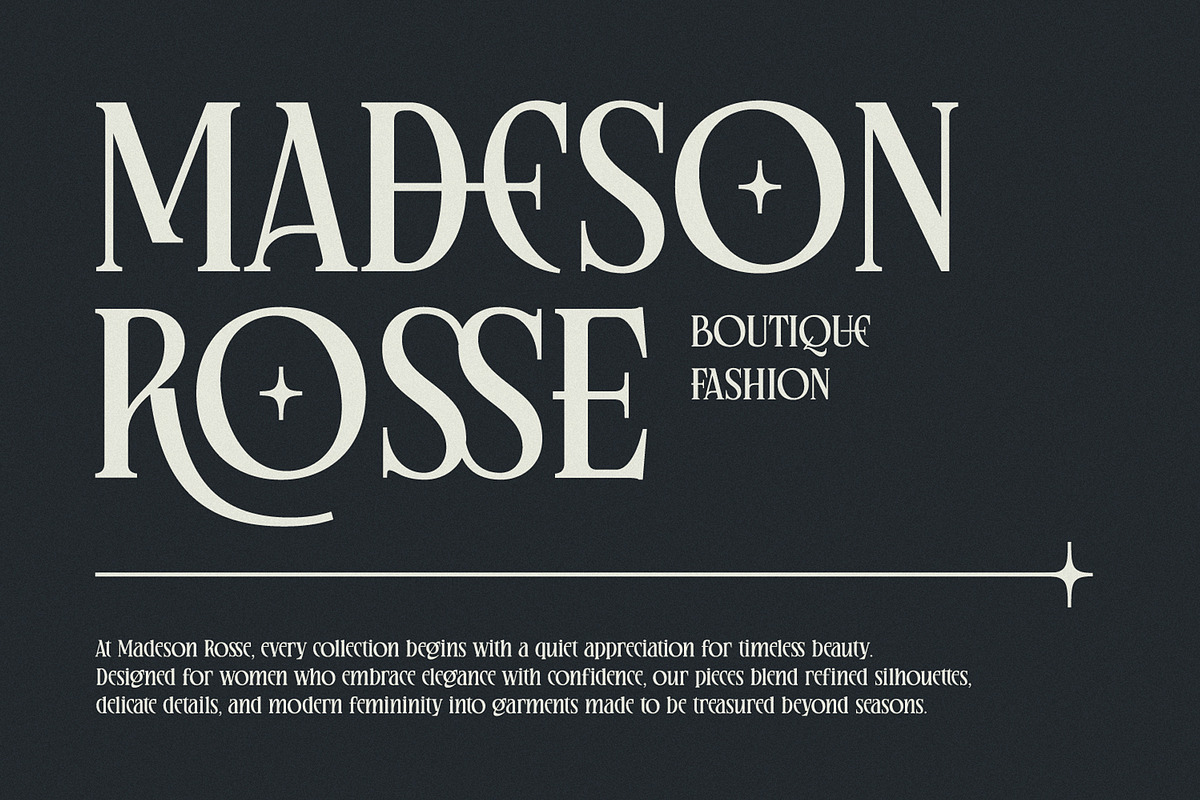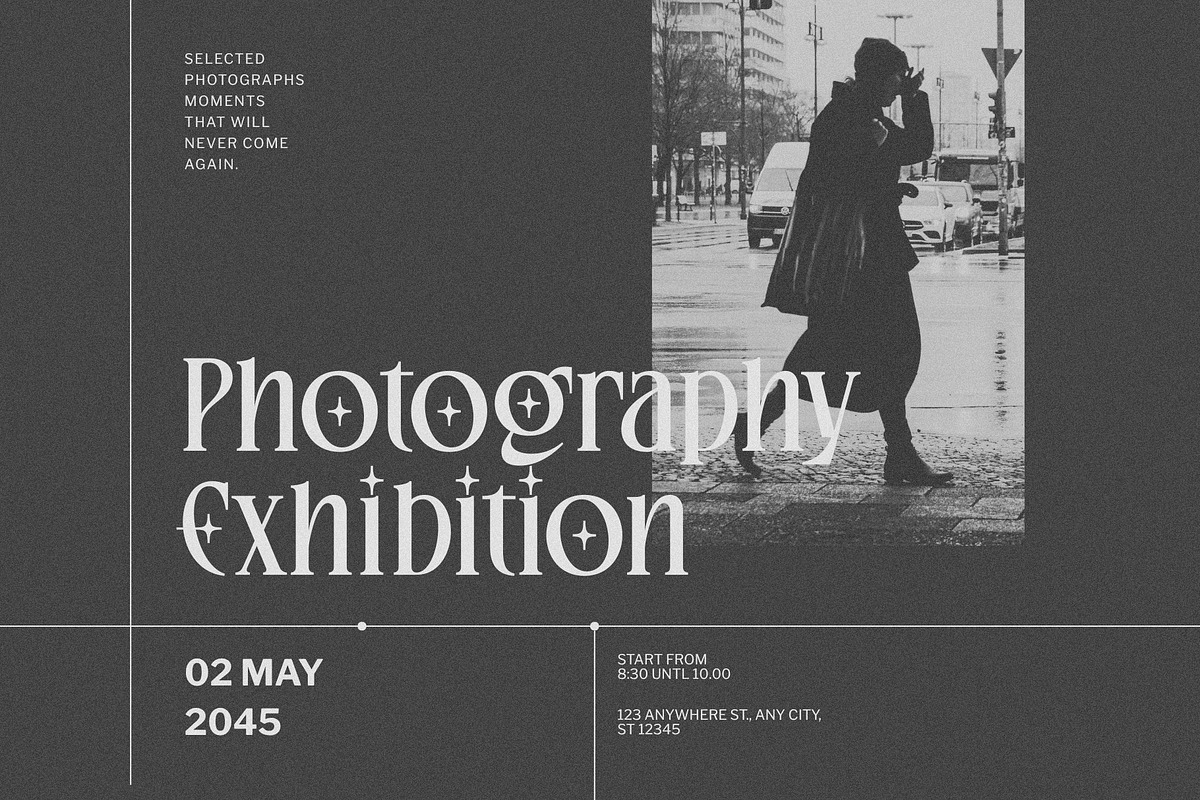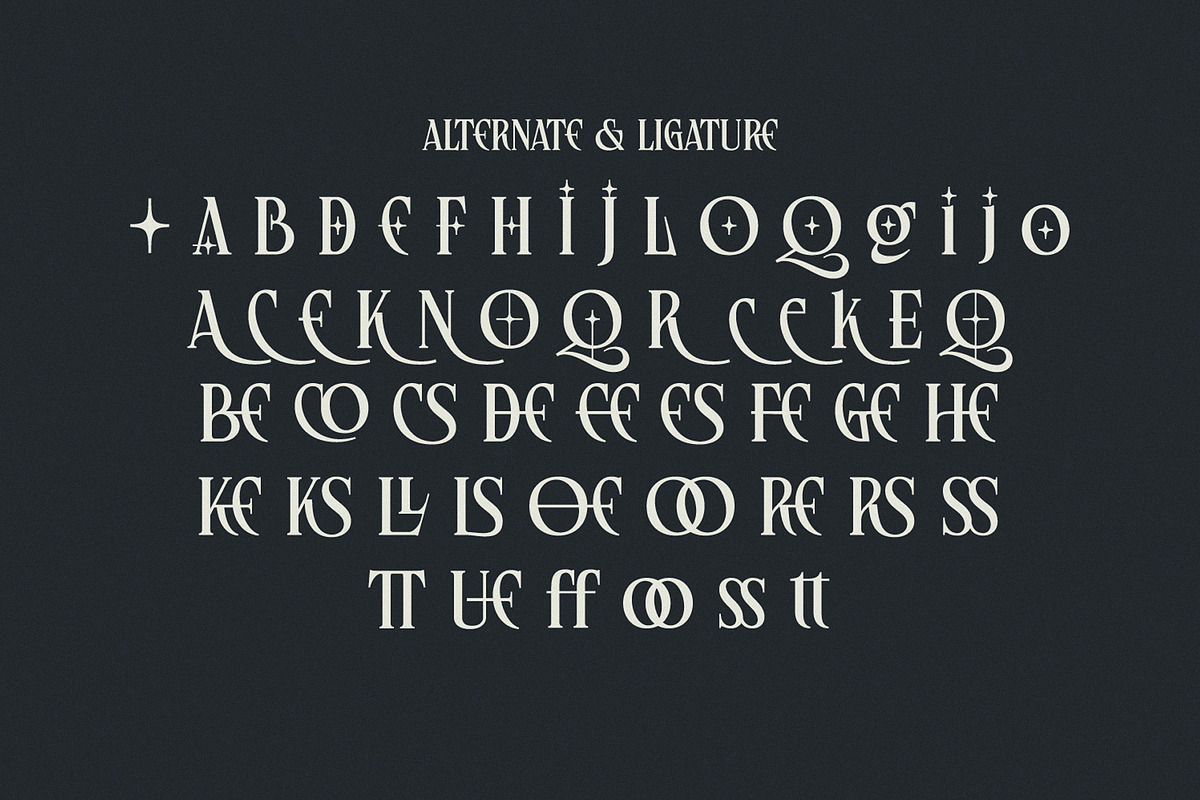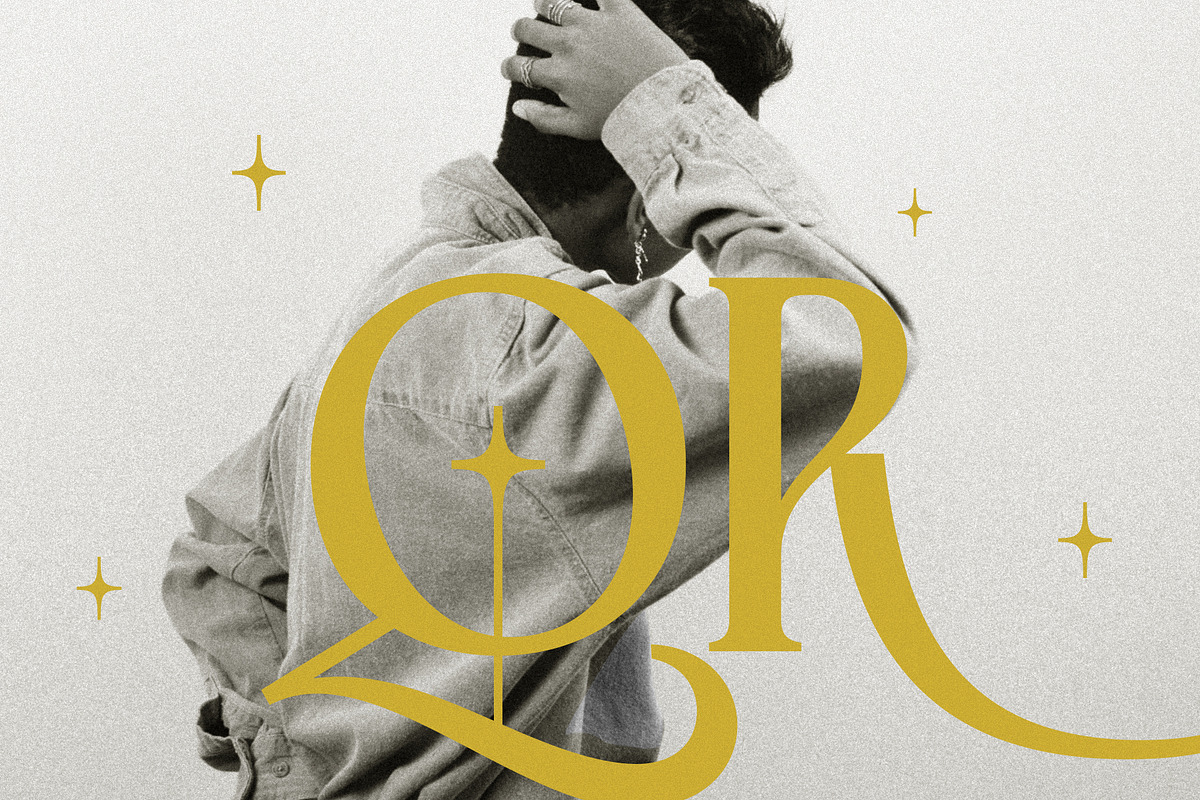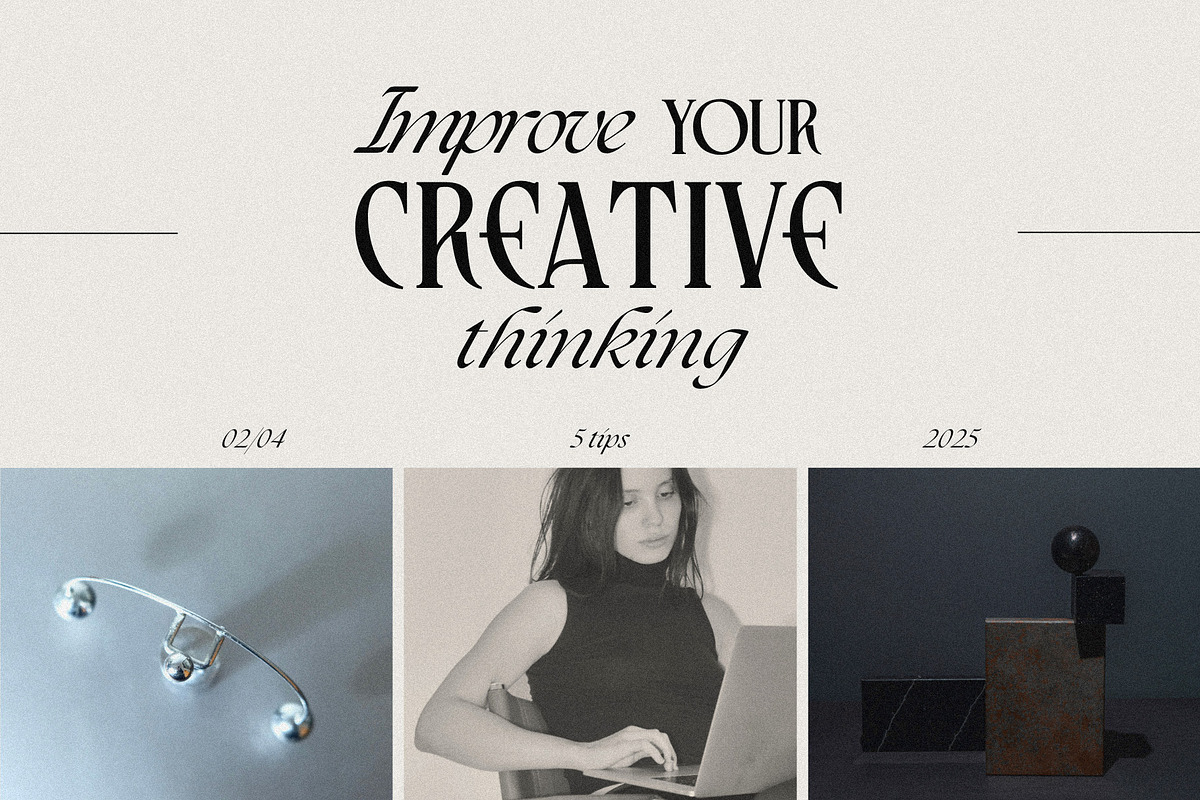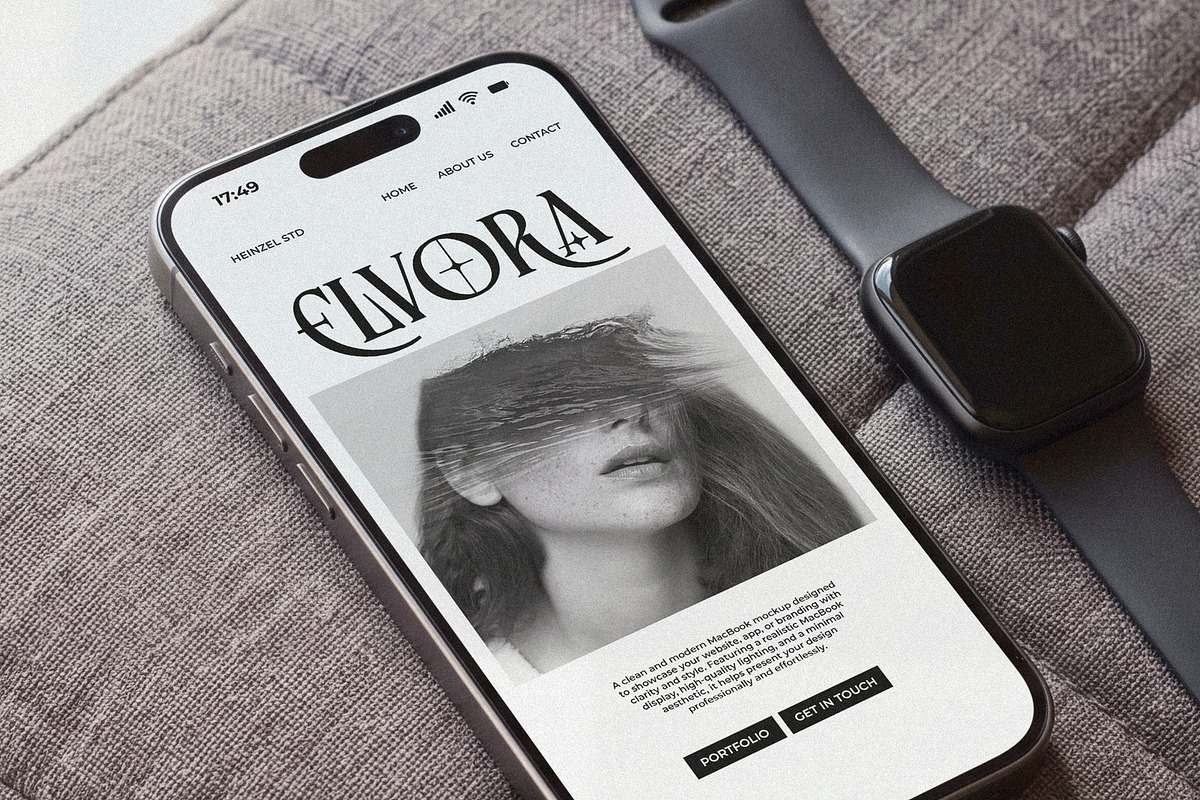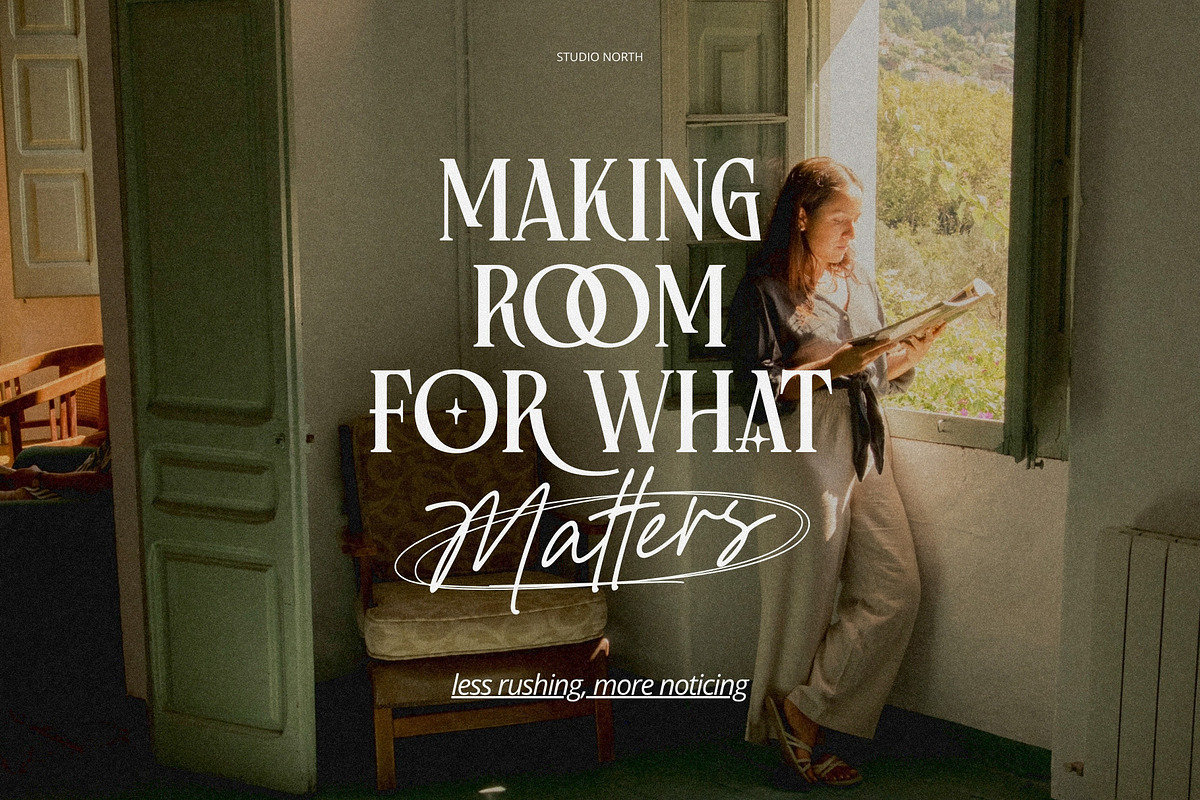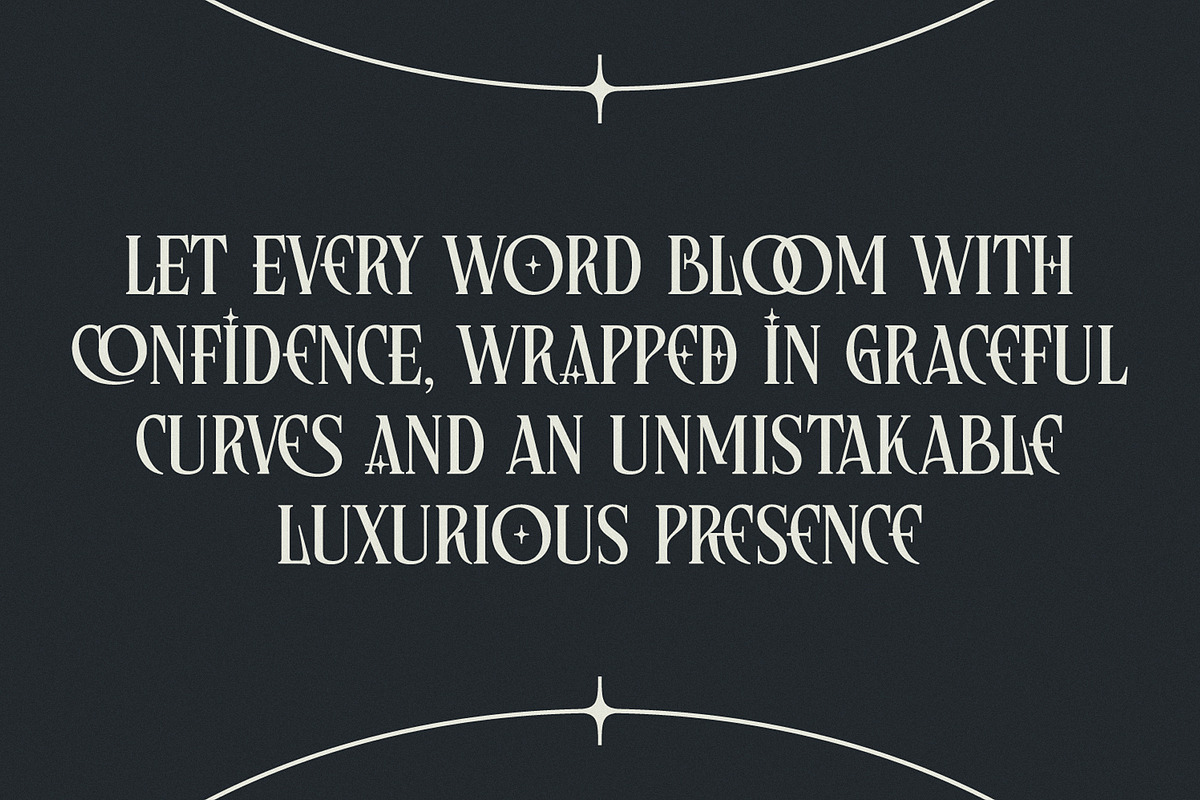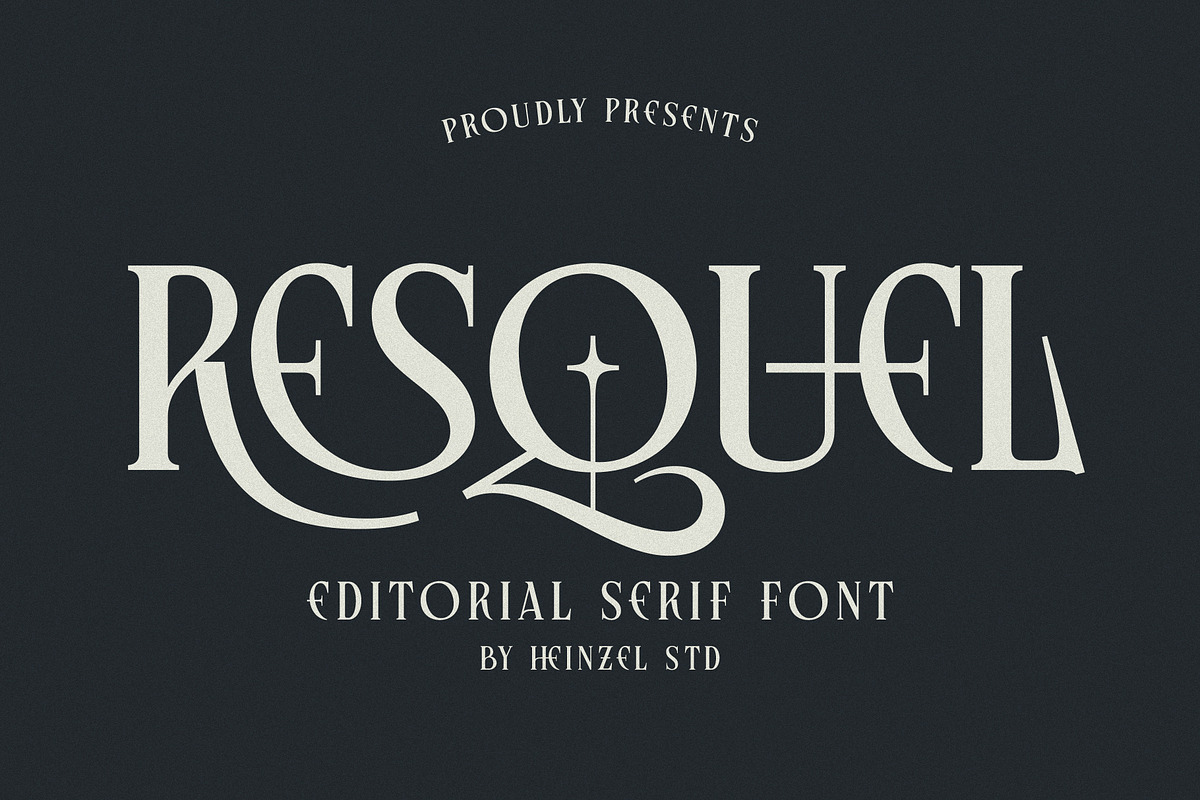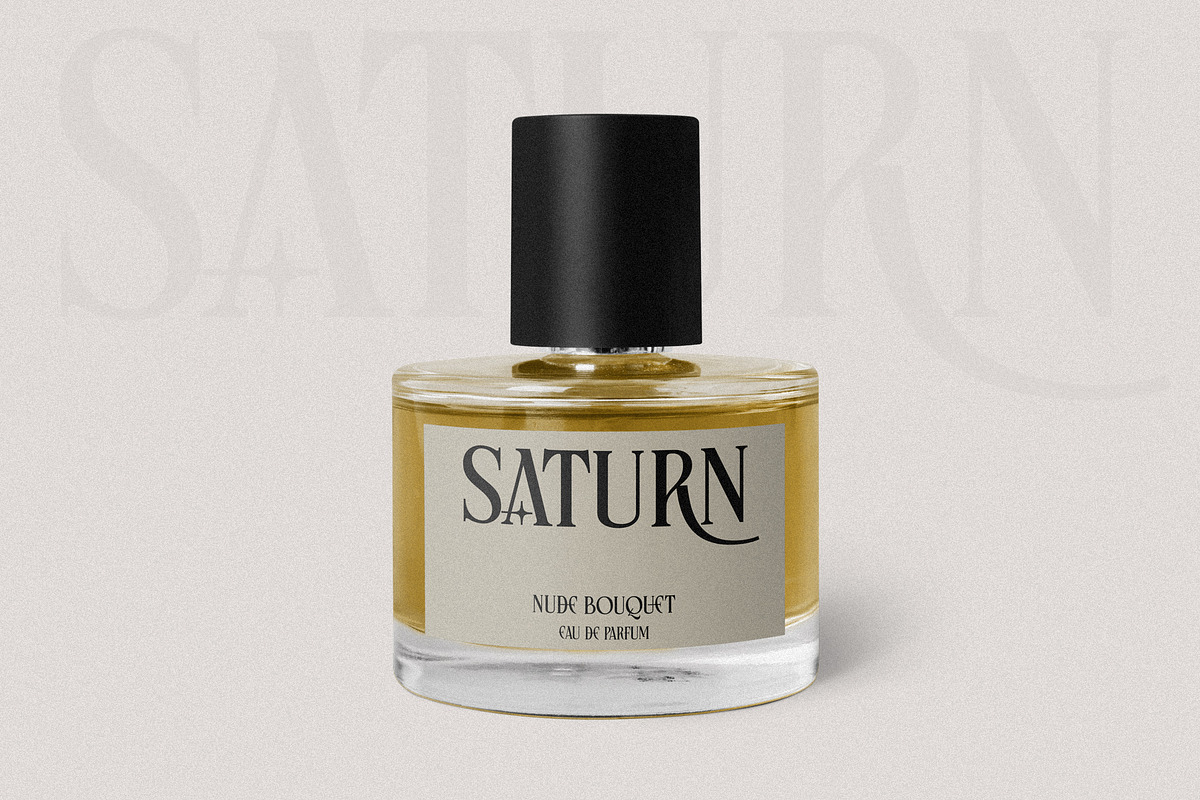
Resquel Elegant Editorial Serif Font
Resquel – Elegant Editorial Serif Font | Fashion & Luxury Typeface
Resquel is an elegant editorial serif font designed to bring sophistication, luxury, and a distinctive fashion-forward character to your creative projects. With its high-contrast serif forms, refined proportions, and dramatic letter details, Resquel creates a polished visual identity that feels both classic and contemporary.
Perfect for fashion magazines, luxury branding, beauty campaigns, editorial layouts, logos, invitations, packaging, posters, headlines, and premium social media designs, Resquel is made for projects that need a strong yet sophisticated typographic presence.
Its stylish display character works beautifully at large sizes, making it especially suitable for magazine covers, fashion titles, brand identities, advertising campaigns, and elegant promotional materials. The expressive shapes add personality while maintaining a refined editorial aesthetic.
Whether you're creating a luxury fashion brand, sophisticated logo, modern magazine, wedding stationery, or high-end packaging, Resquel Serif Font adds an exclusive and memorable touch to your typography.